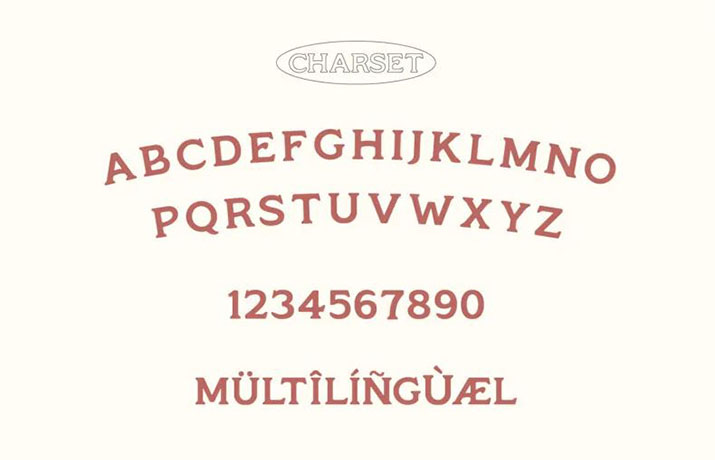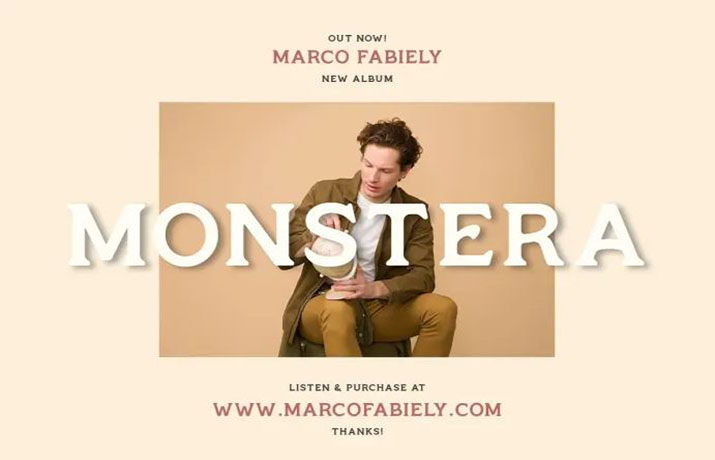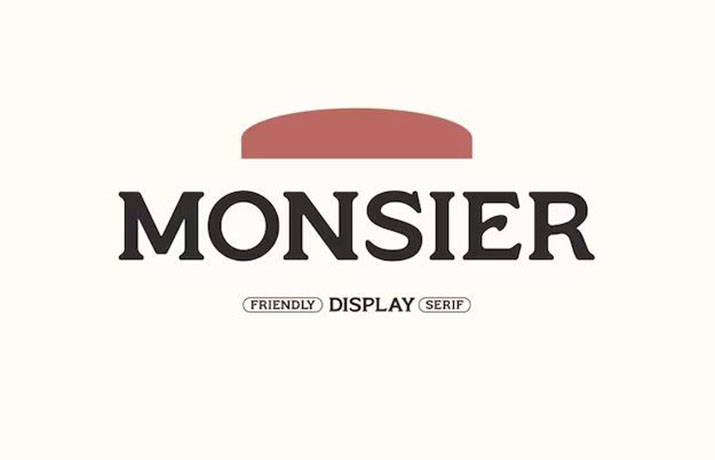
Monsier Free Font is a display serif typeface that comes with a classic and stylish retro look. It was designed and published by Craft Supply Co.
It has a bold and modern look which gives a stylish appearance throughout the typeface. And this is truly a great aspect of it because due to this it gives a unique look.
Its classic and elegant look with a touch of modern simplicity, makes it an ideal choice for multiple purposes such as logos, posters, websites, social media graphics, invitations, and more.
“Monsier typeface comes in two different weights including regular and italic. That possesses both OTF and TTF formats. This font includes 82 glyphs, and numbers, and supports 34 global languages”.
Style: | Serif, Retro, Bold |
- Its stylish appearance allows you to make a wide range of projects with high readability, including labels, product designs, packaging, branding, YouTube thumbnails, business names, move posters, shopping bags, branding projects, logos, social media posts, advertisements, headers, titles, logo designs, headers, and cards.
This font supports 34 languages.